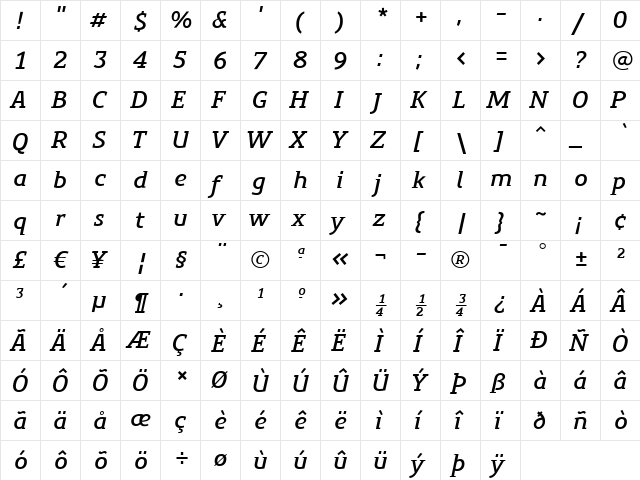
PreciousSerif Bold Italic
Design Context for PreciousSerif Typeface
PreciousSerif carries the refined structure of traditional serif typography, with bracketed terminals and considered proportions that communicate credibility and craft. The slanted form adds forward momentum and visual energy. The heavy weight commands attention and anchors typographic hierarchies.